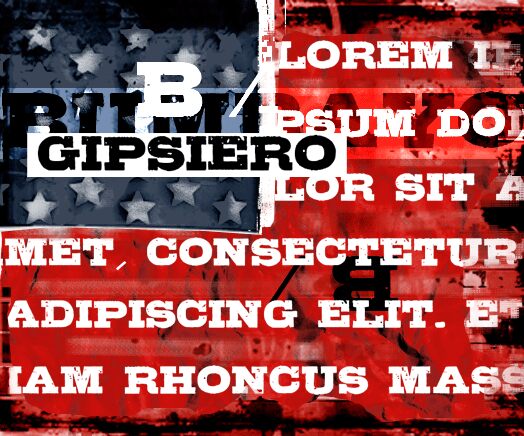
Gipsiero Kracxed from Bumbayo Type Fabrik is a free eroded display font with massive slab-serif capitals and a dry, fractured surface. Its broad shapes feel firmly planted, and the dense network of fine cracks gives the lettering the look of baked earth or weathered stone.
Posters are its strongest setting, especially for rock events, action films, and rugged outdoor promotions. It also suits album covers and merchandise. The distressed texture will appeal to designers working with heavy music, extreme sports, post-apocalyptic entertainment, or brands built around toughness and decay.
The font family includes uppercase and lowercase letters and numerals 0–9.
It includes three free fonts:
- Gipsiero Regular
- Gipsiero Kracxed
- Gipsiero OwtLine